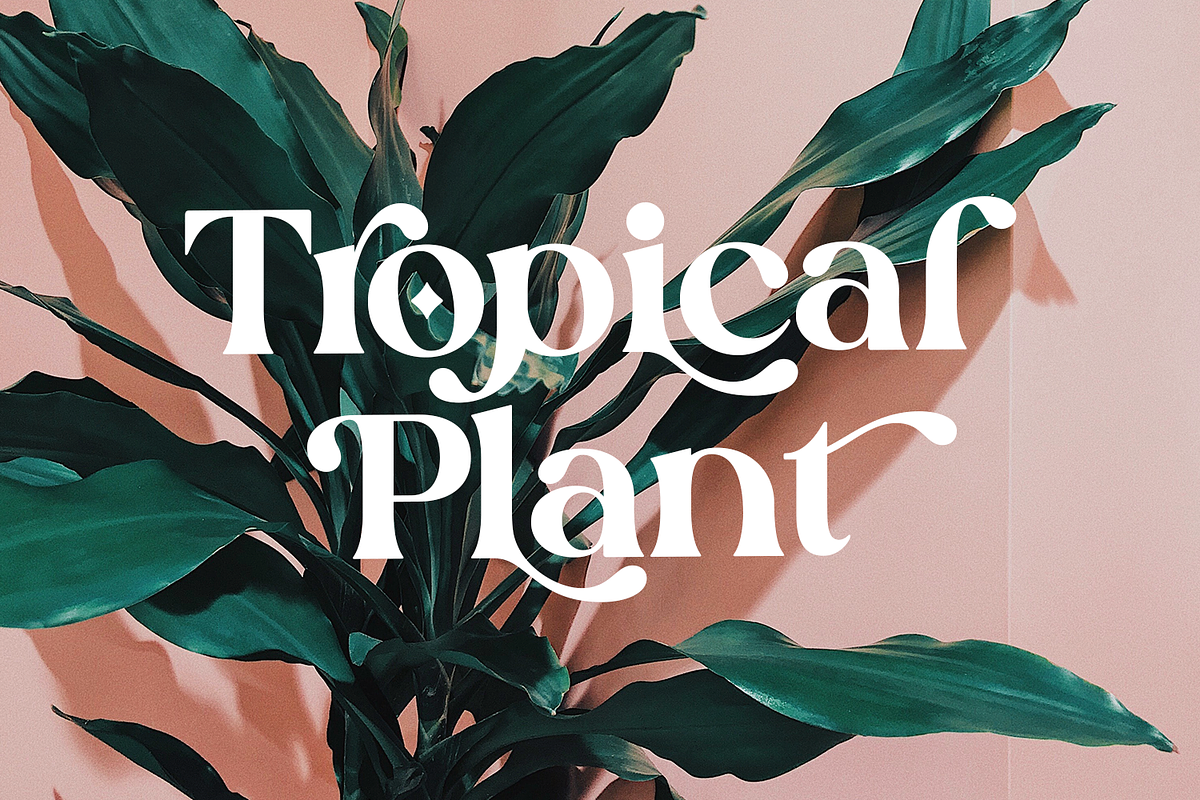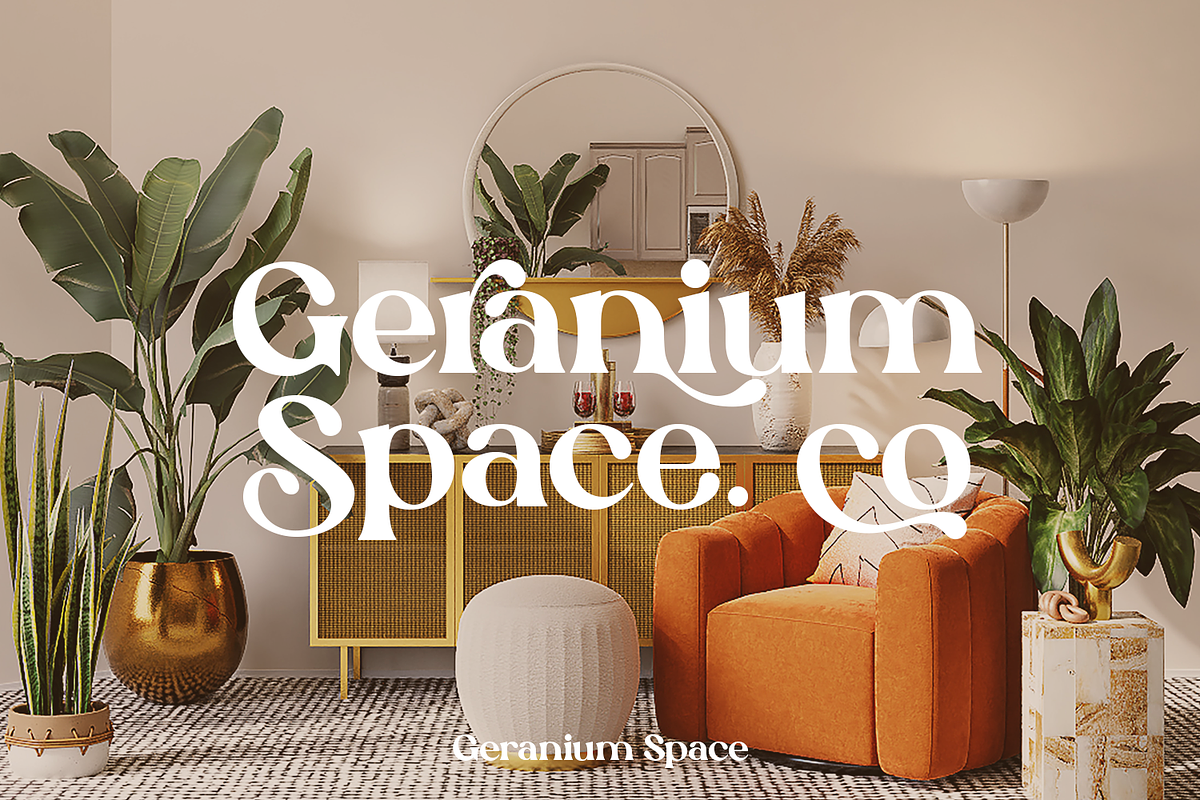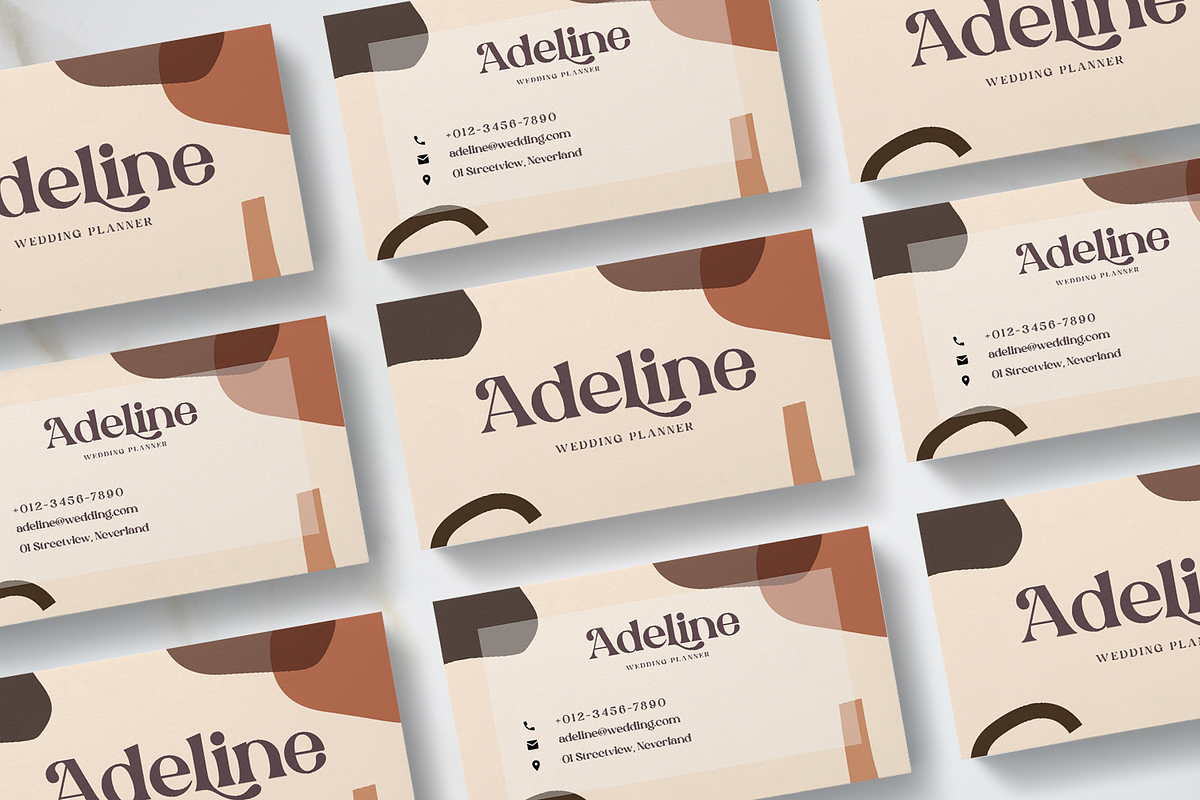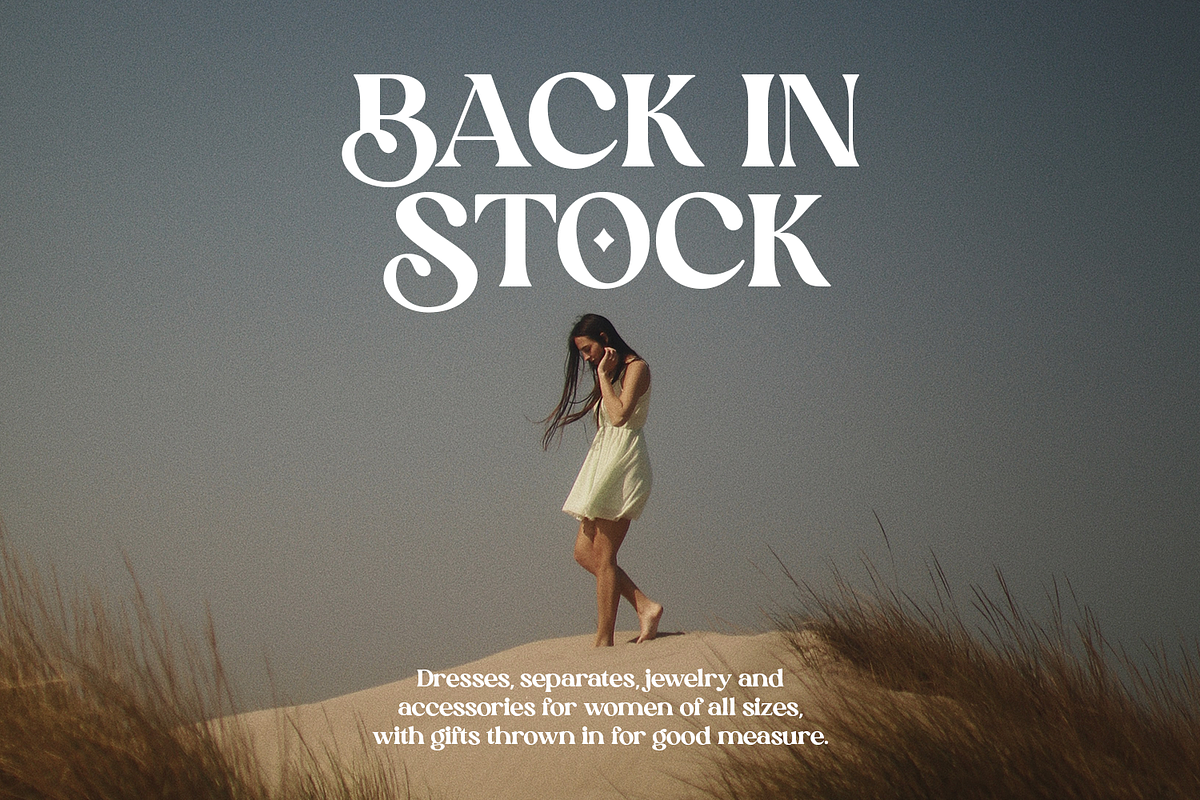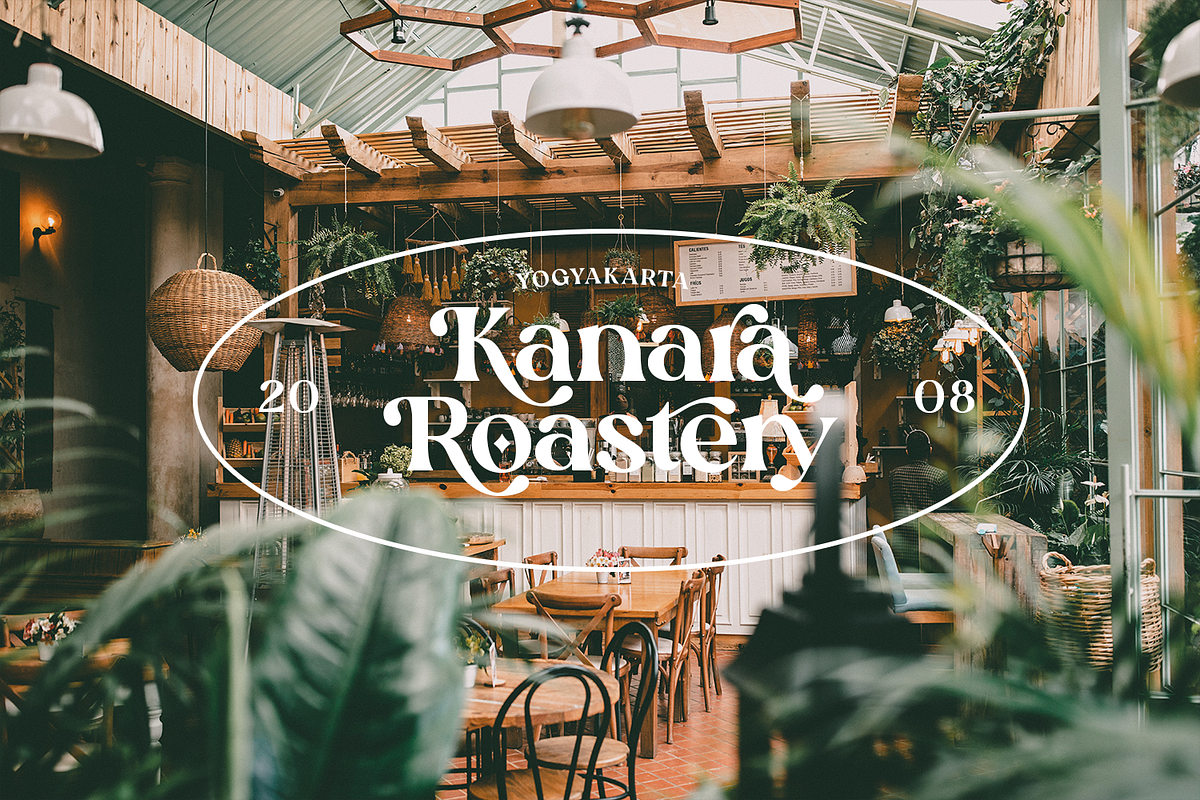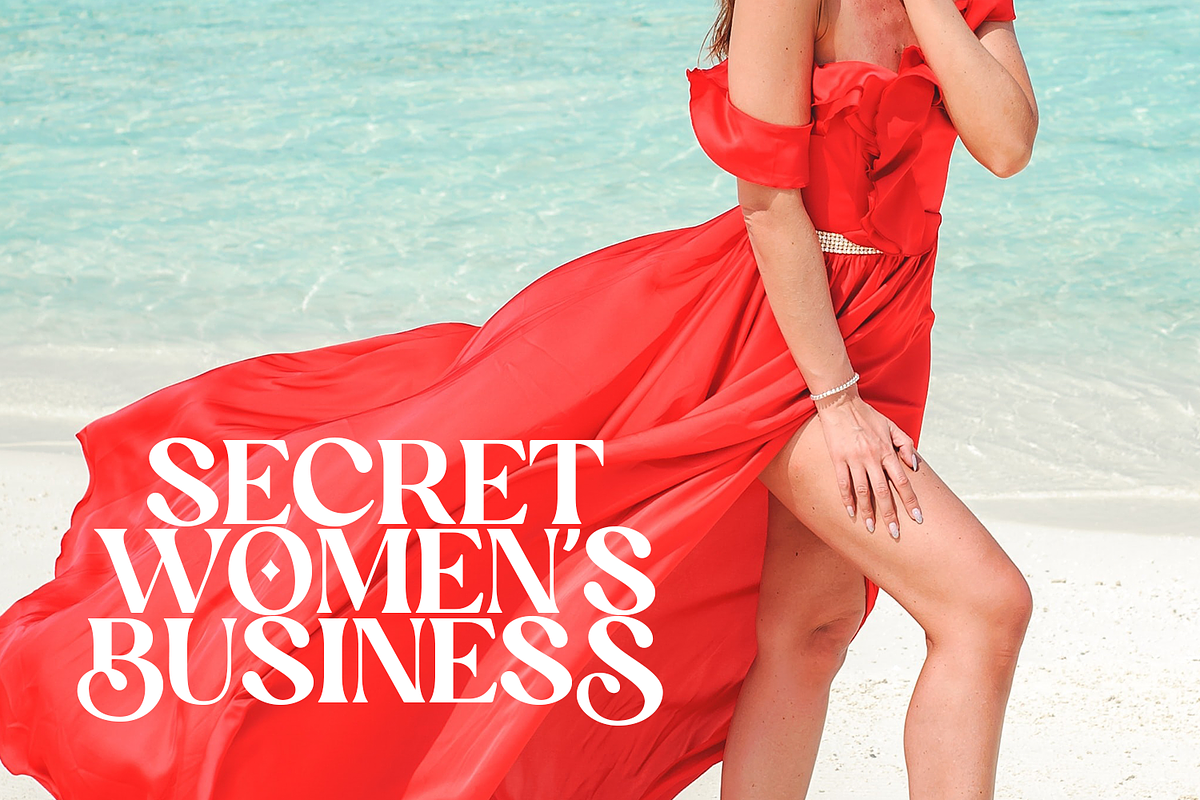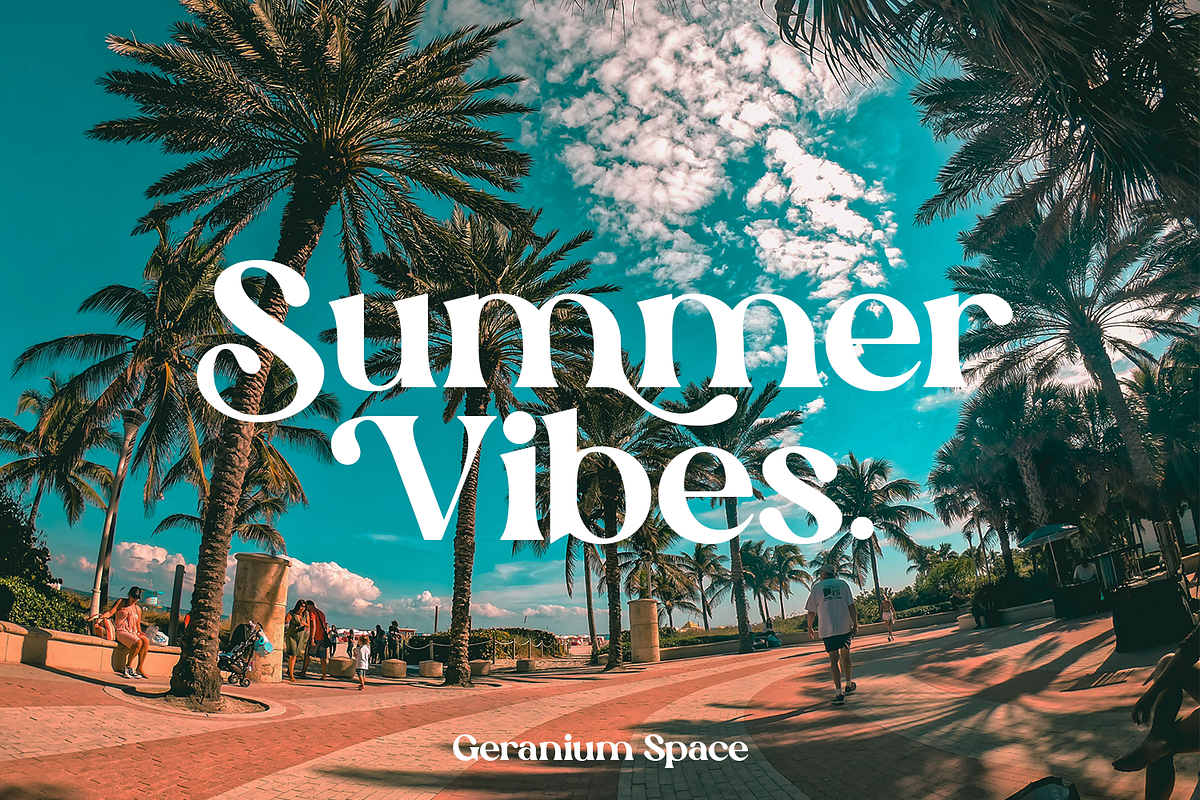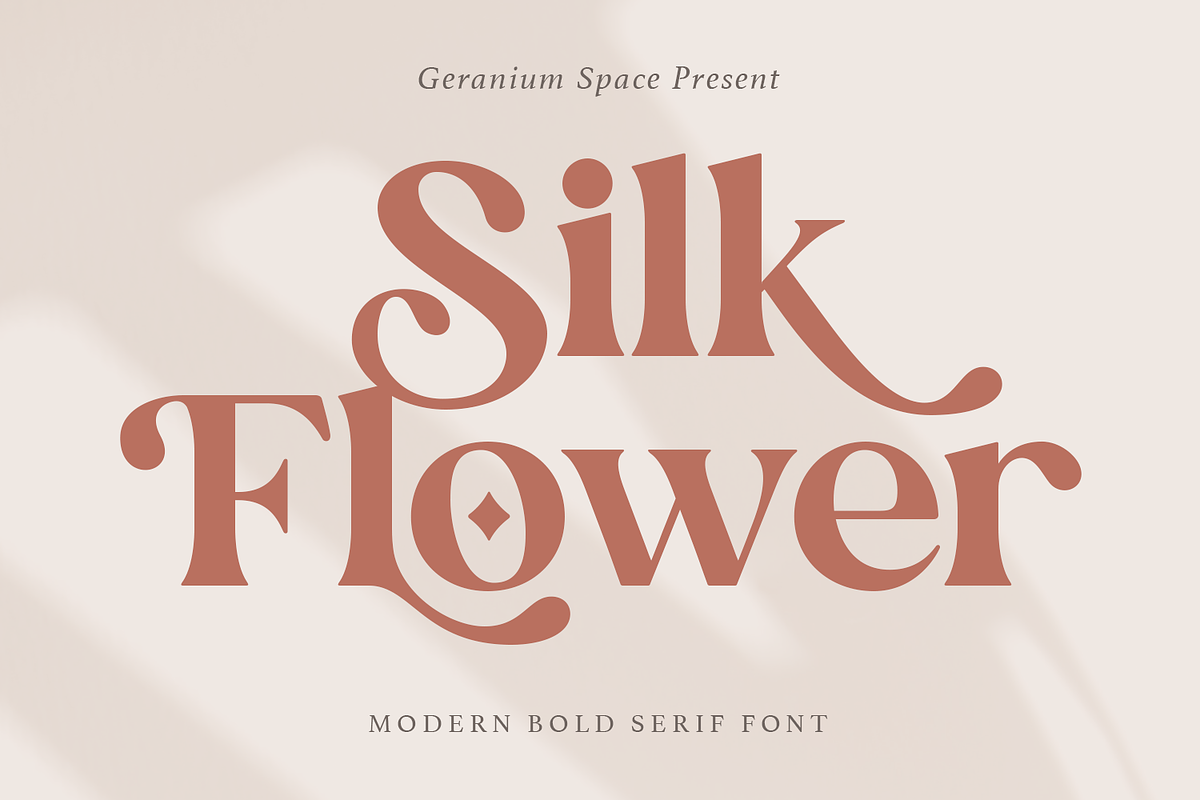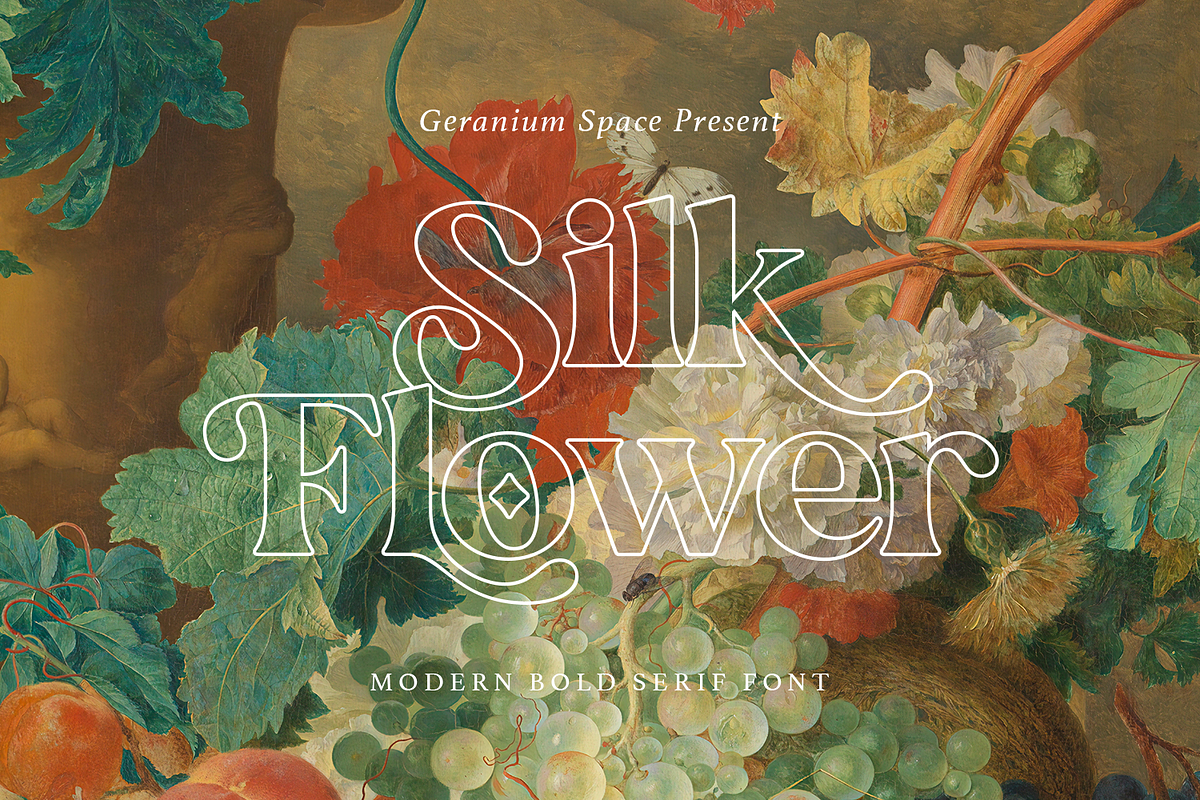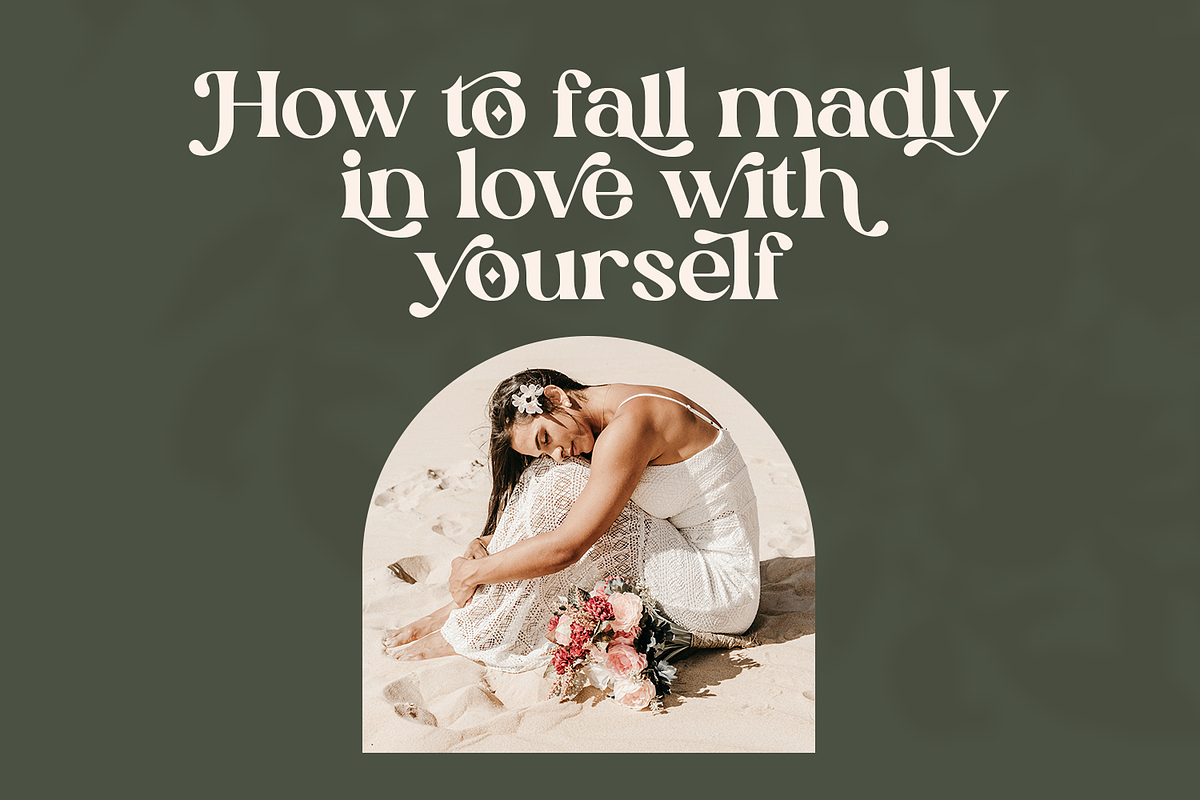
Silk Flower - Modern Serif
Hello everyone let me introduce our new modern bold serif font "Silk Flower" in a feminine style. I provide many alternative letters that you can adjust to your design needs, and some ligatures to add a feminine impression.
"Silk Flower" is perfect for web design, branding, logos, invitations, magazines, and more.